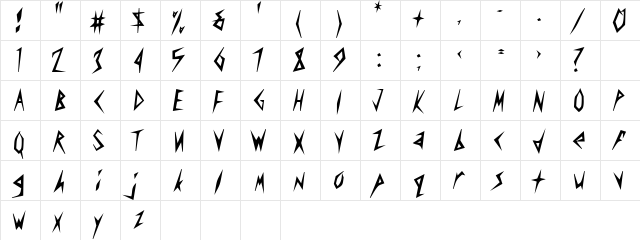
AmplifierCondensed Heavy
Design Context for AmplifierCondensed Typeface
AmplifierCondensed is a composed and adaptable typeface that performs quietly and consistently across a wide range of design contexts. The condensed width makes it efficient for tight spaces without sacrificing legibility.